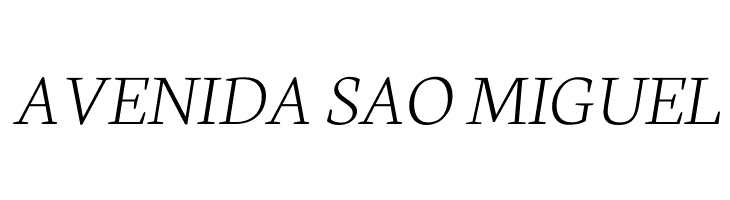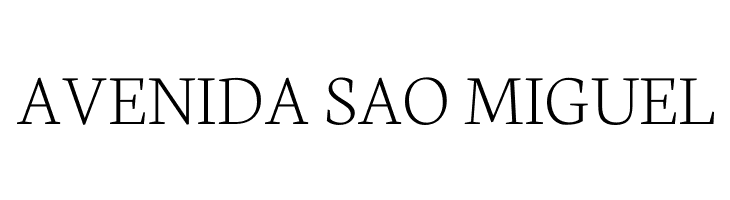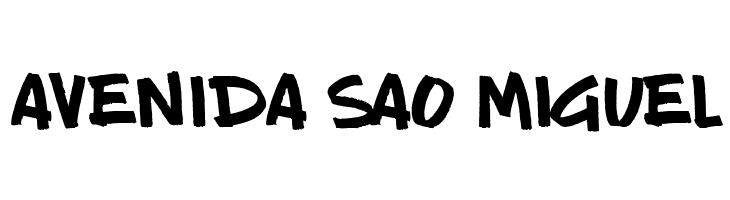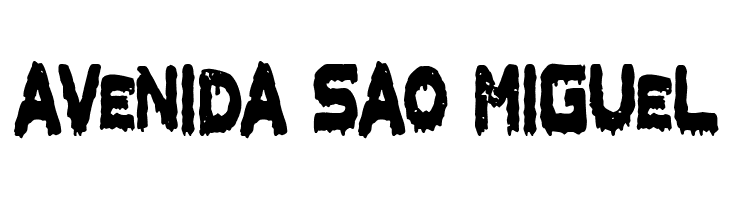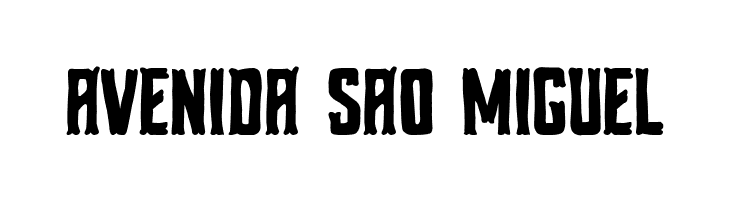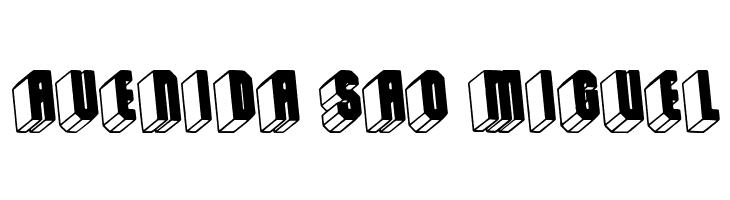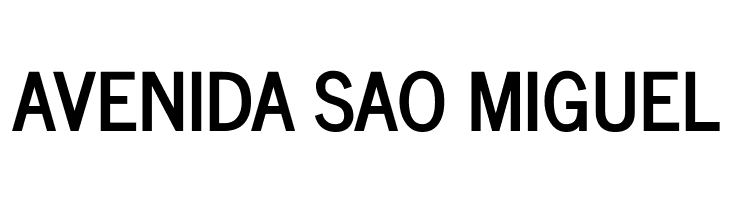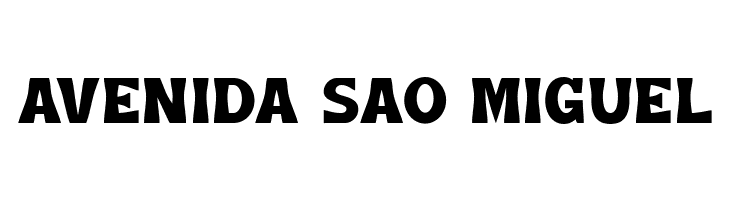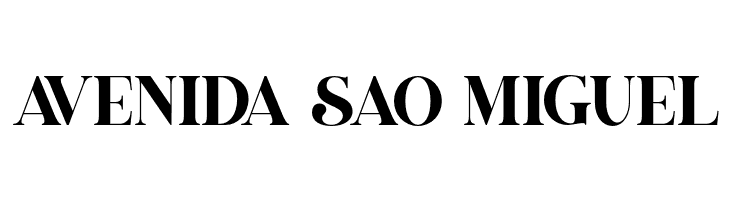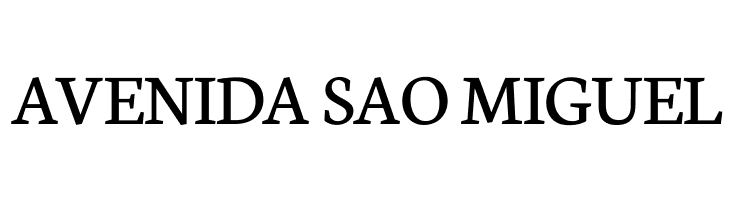
A modern cursive font with elegant, flowing lines and a slight slant.
Elegant cursive font with a slight slant and medium contrast.
A bold serif font with strong strokes and prominent serifs.
A bold serif font with strong, thick strokes and a classic aesthetic.
A refined serif font with high contrast and elegant proportions.
A clean and elegant serif font with a light weight and classic design.
A refined, elegant serif font with a light, italic style.
A modern serif font with elegant italic styling and sharp serifs.
Elegant serif font with a subtle italic slant and moderate stroke contrast.
A modern serif font with clean lines and balanced proportions.
A refined serif font with light weight and classic proportions, offering elegance and readability.
A classic serif typeface with modern elegance and excellent readability.
A classic serif font with modern elements, offering clarity and elegance.
A bold, classic serif typeface with strong lines and a slightly condensed appearance.
A bold serif font with strong, thick strokes and prominent serifs.
A refined serif typeface with thin strokes and a modern elegance.
A light, elegant serif font with moderate contrast and rounded serifs.
A modern serif font with elegant, readable characters and balanced proportions.
A bold, modern font with a geometric and dynamic style.
A bold, high-contrast serif font with a classic yet modern style.
A bold, high-contrast serif font with elegant curves and dramatic strokes.
A bold, decorative font with a gothic and urban flair.
A bold, rounded font with a playful and whimsical style.
A bold, three-dimensional font with a retro, geometric style.
A bold, energetic handwritten font with thick strokes and dynamic letterforms.
A bold, distressed font with a horror-themed, dripping effect.
A bold, hand-drawn font with a rugged, vintage style.
A playful, bold font with rounded, bubble-like characters.
A bold and dynamic font with thick, rounded strokes and a distinctive style.
A dot matrix font with a retro digital display style.
A modern, clean sans-serif font with excellent readability.
A geometric, layered outline font with a modern, futuristic style.